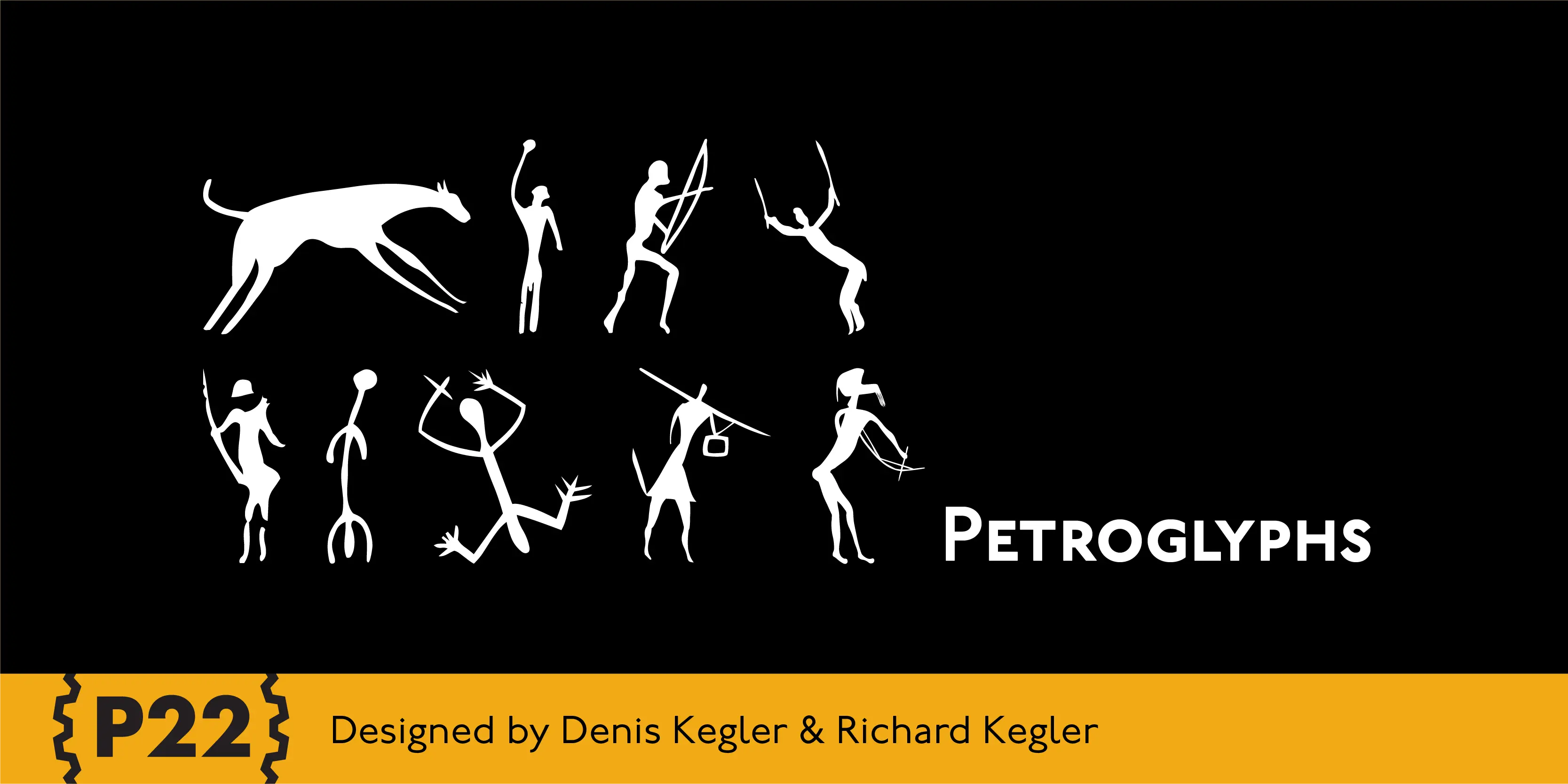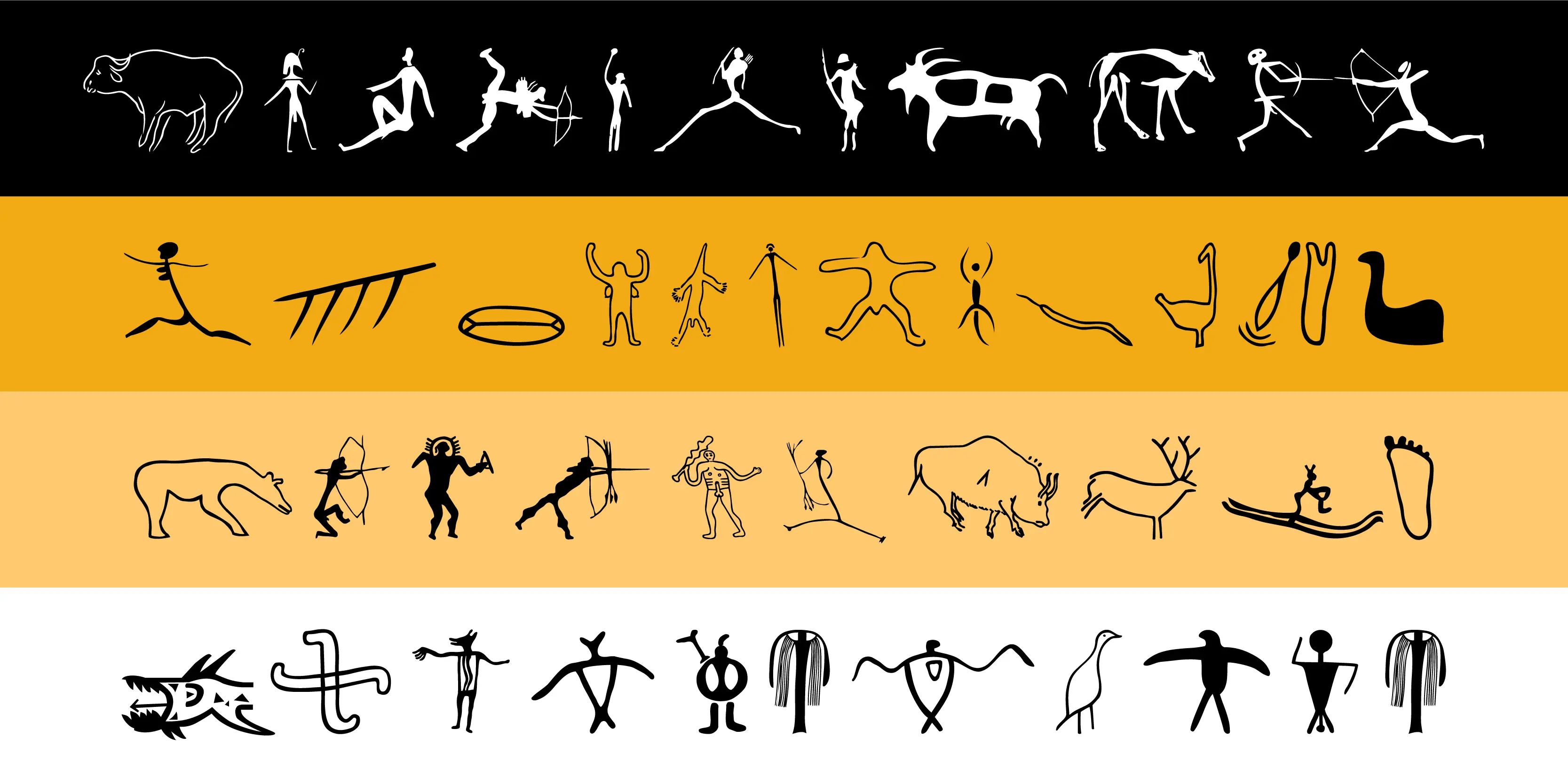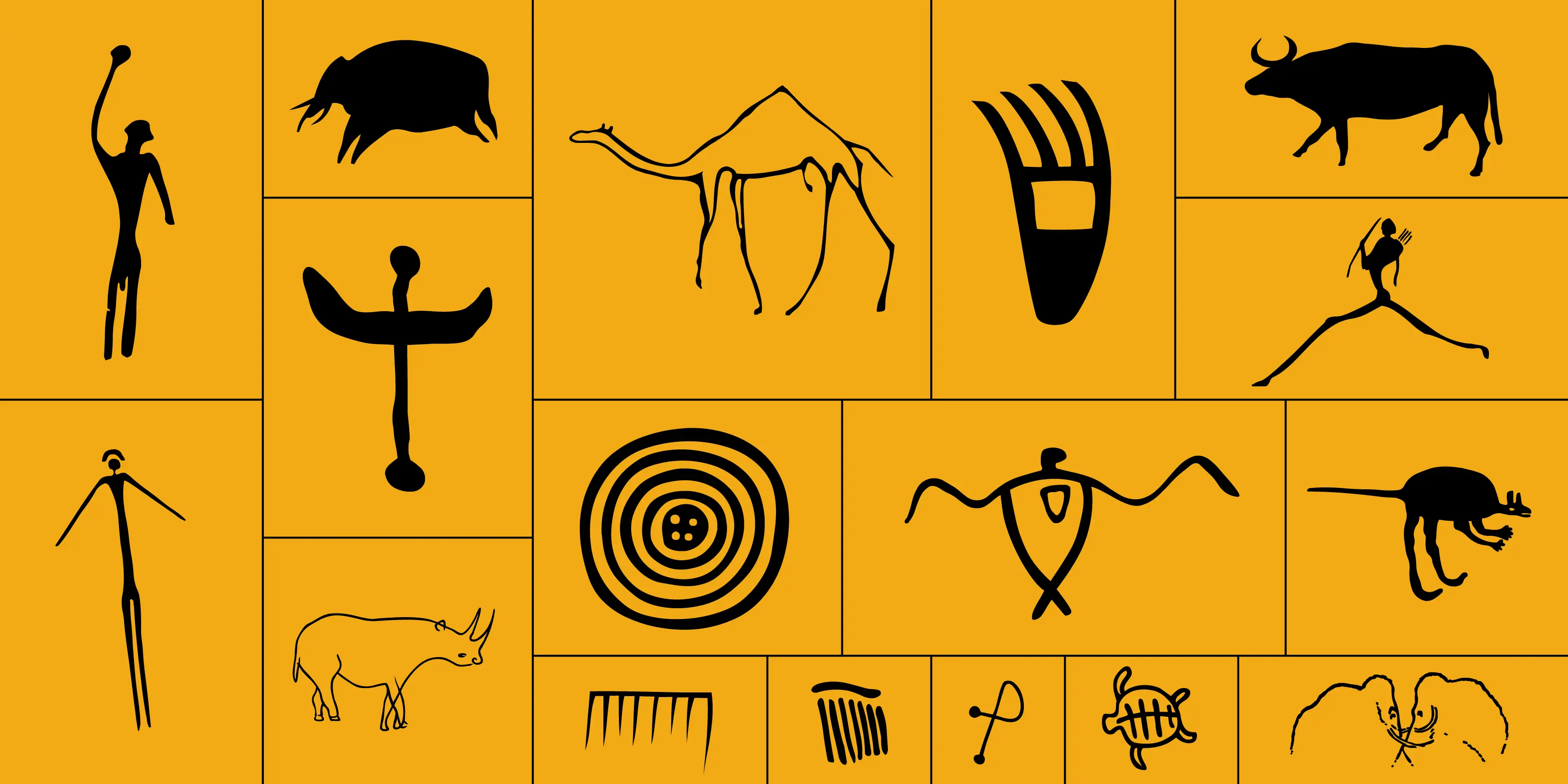
Petroglyphs Font Family
• Petroglyphs African
• Petroglyphs Australian
• Petroglyphs European
• Petroglyphs North American
Petroglyphs
The oldest known form of visual communication, rock art expresses the culture and traditions of primitive humankind. P22’s Petroglyphs picture font presents ancient drawings and illustrations from four continents.